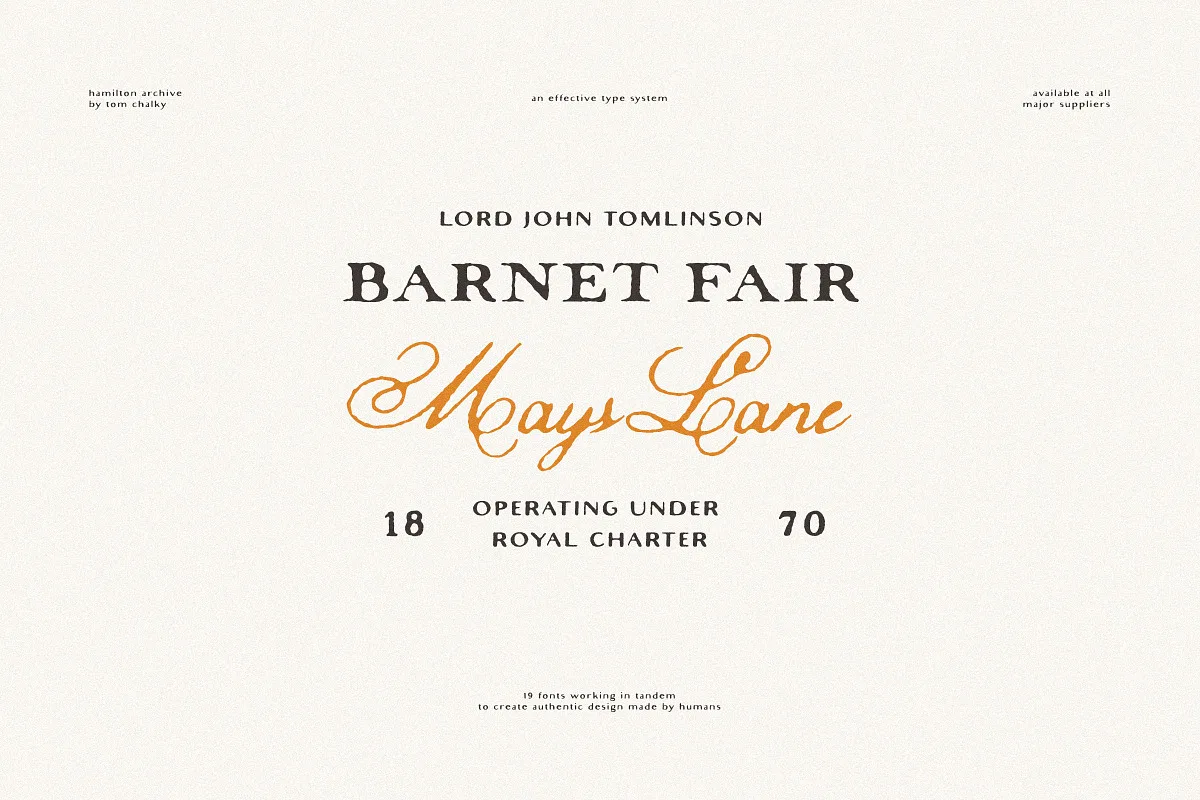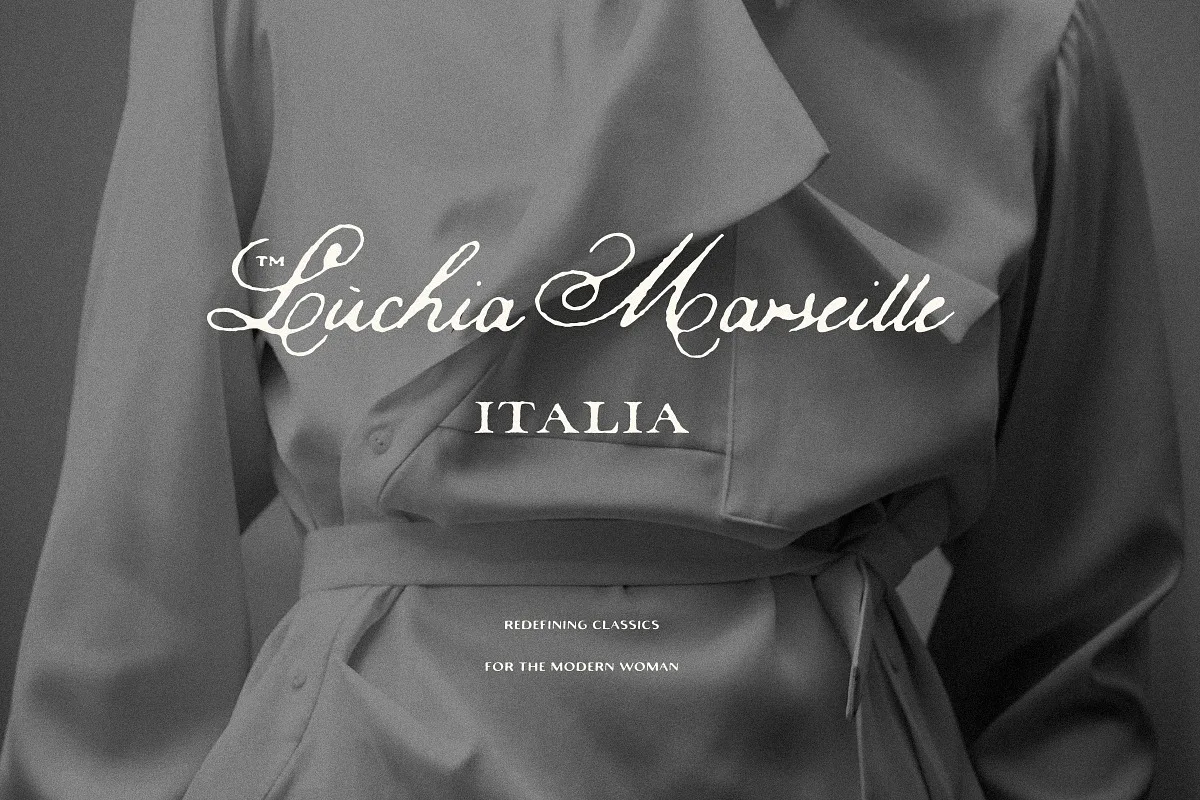
Introducing the Hamilton Archive Font Collection—a beautifully crafted set of fonts that blend vintage charm with modern functionality
Designed to capture the feel of early 20th-century print design, this collection brings a handcrafted aesthetic that’s perfect for timeless branding, bespoke editorial layouts, wedding invitations, and more.
The serif and sans fonts come in regular and bold weights, along with a condensed option for each. Plus, there’s a ‘Small’ style that offers a softer touch, making it ideal for smaller text (but works great for larger type too!).
And we can’t forget the stunning handwritten script, available in light, regular, and bold. It adds a touch of elegance to any project, with beautifully crafted ligatures and stylistic alternates that give off a graceful, antique vibe.
If you’re looking to infuse your work with a vintage-inspired, handcrafted feel, the Hamilton Archive Collection delivers plenty of authenticity and character.
- Stylistic Alternates and Ligatures for the Script Font